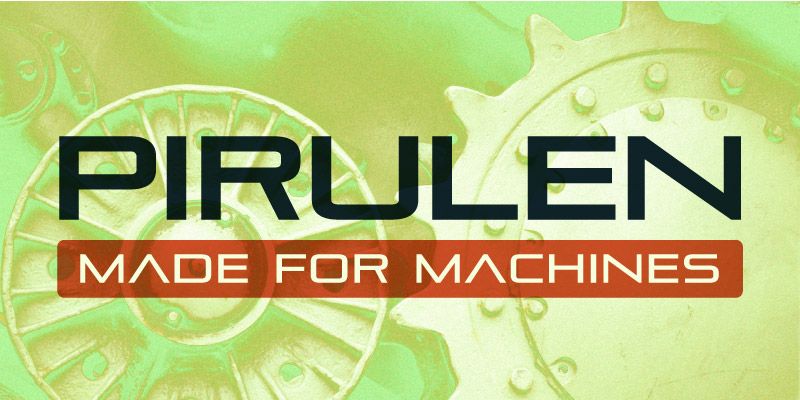
Pirulen
Pirulen is a wide, hi-tech headliner. The lambda-style Λ gives Pirulen a stark look, but a barred A is included in place of the florin (ƒ) symbol.